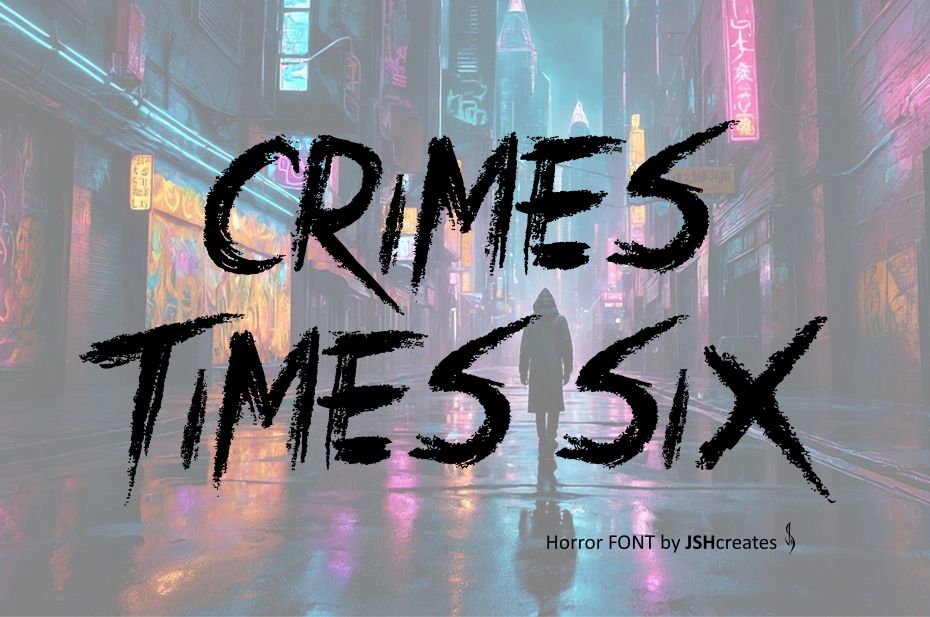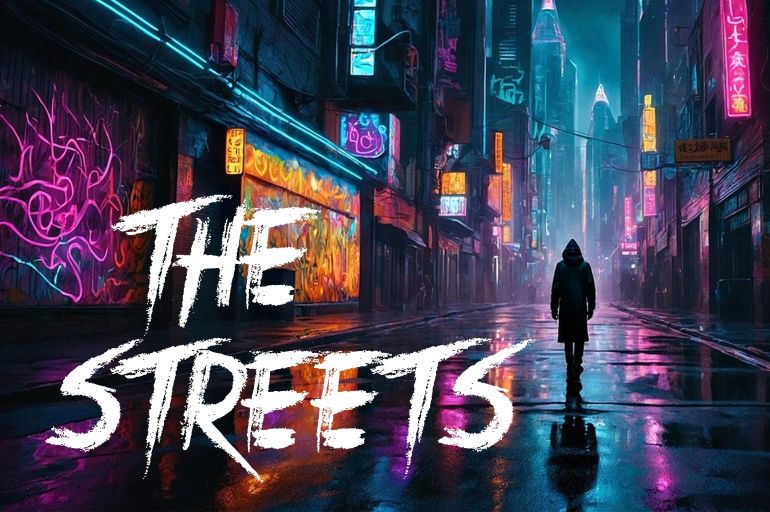
Crimes Times Six Font
Cool fancy horror font. “Crimes Times Six”. Perfect for advertising and display purposes, including banners, book covers, shirts, posters, logos and much more!
Font includes all uppercase and lowercase letters, numbers, characters and punctuation.